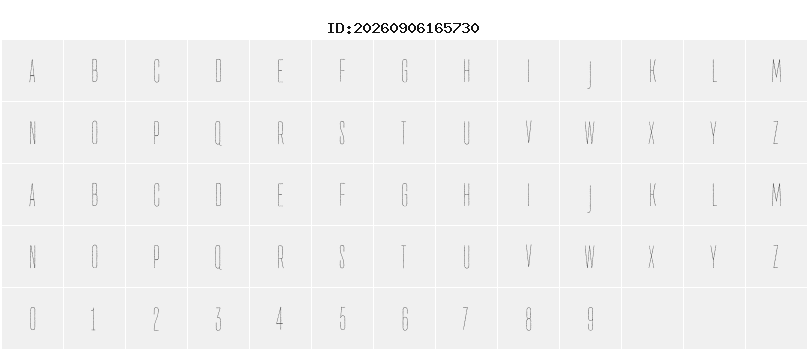
• Font Name: TT Directors DEMO Thin Rough
• Full Font Name: TT Directors DEMO Thin Rough Thin
• Designer: Typetype
• Description: Designed for Typetype in 2014 by Ivan Gladkikh. TT Directors is one of series of font families which were designed for use in web and mobile applications, print and multimedia environments.
About TT Directors DEMO Thin Rough.ttf
TT Directors DEMO Thin Rough.ttf is a modern, elegant sans-serif font designed for ultimate readability and visual harmony. Perfect for branding, headlines, web design, and print materials.